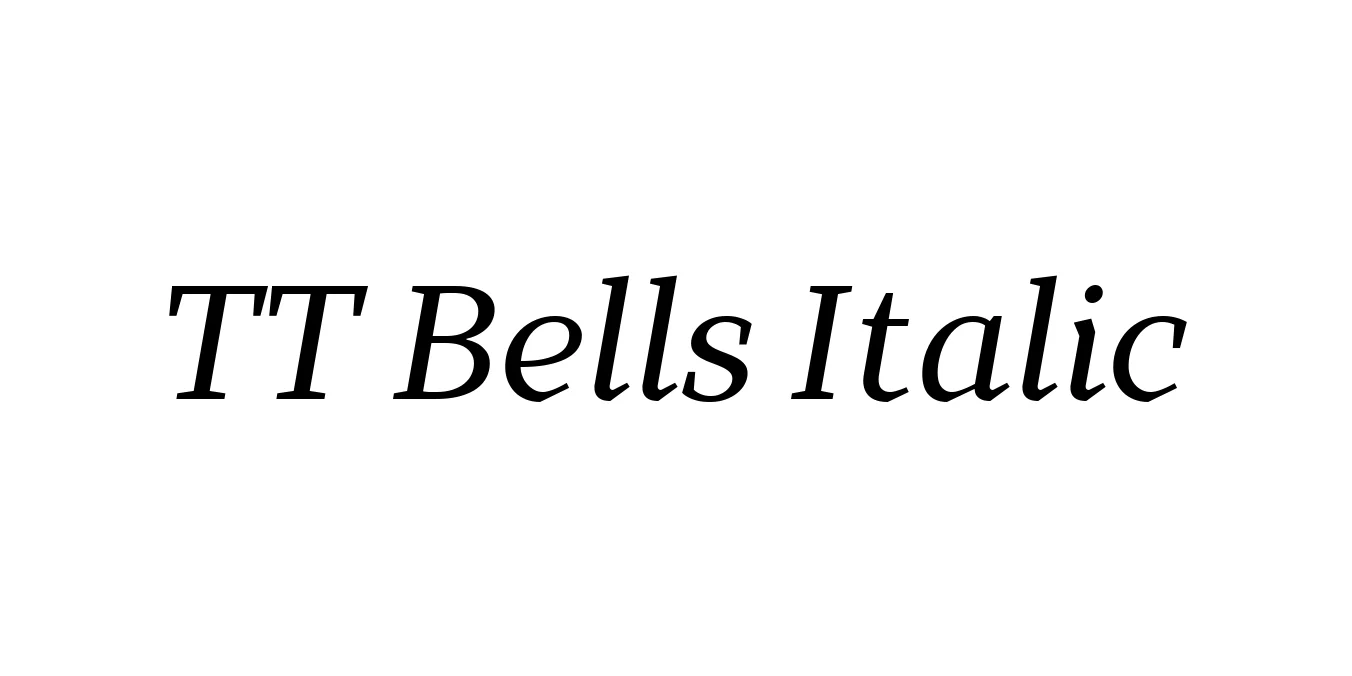
TT Bells Italic
Designed by TypeType Team
TT Bells Italic is a sophisticated modern serif typeface that draws inspiration from the classical proportions and aesthetics of Old Style serifs. Characterized by high stroke contrast, sharp serifs, and a rhythmic calligraphic influence, this font exudes an air of elegance and authority. The Italic variation specifically introduces a fluid, dynamic movement to the letterforms, enhancing the overall texture of the text while maintaining exceptional legibility in both display and body copy sizes.
Developed by the TypeType foundry, the TT Bells family was designed to provide a versatile tool for contemporary designers who seek a balance between historical grace and modern functionality. The TT Bells Italic weight is packed with OpenType features, including ligatures and stylistic alternates, making it a powerful choice for high-end editorial layouts, premium branding, and luxury packaging where a touch of traditional craftsmanship is required.
TT Bells Italic Best Uses
Perfect for magazines, book covers, and long-form articles requiring a touch of sophistication.
Ideal for high-end logos, perfume packaging, and fashion identity projects.
Adds a refined and romantic flair to formal invitations and event cards.
Provides a distinctive and professional look for hero sections and headlines on lifestyle websites.